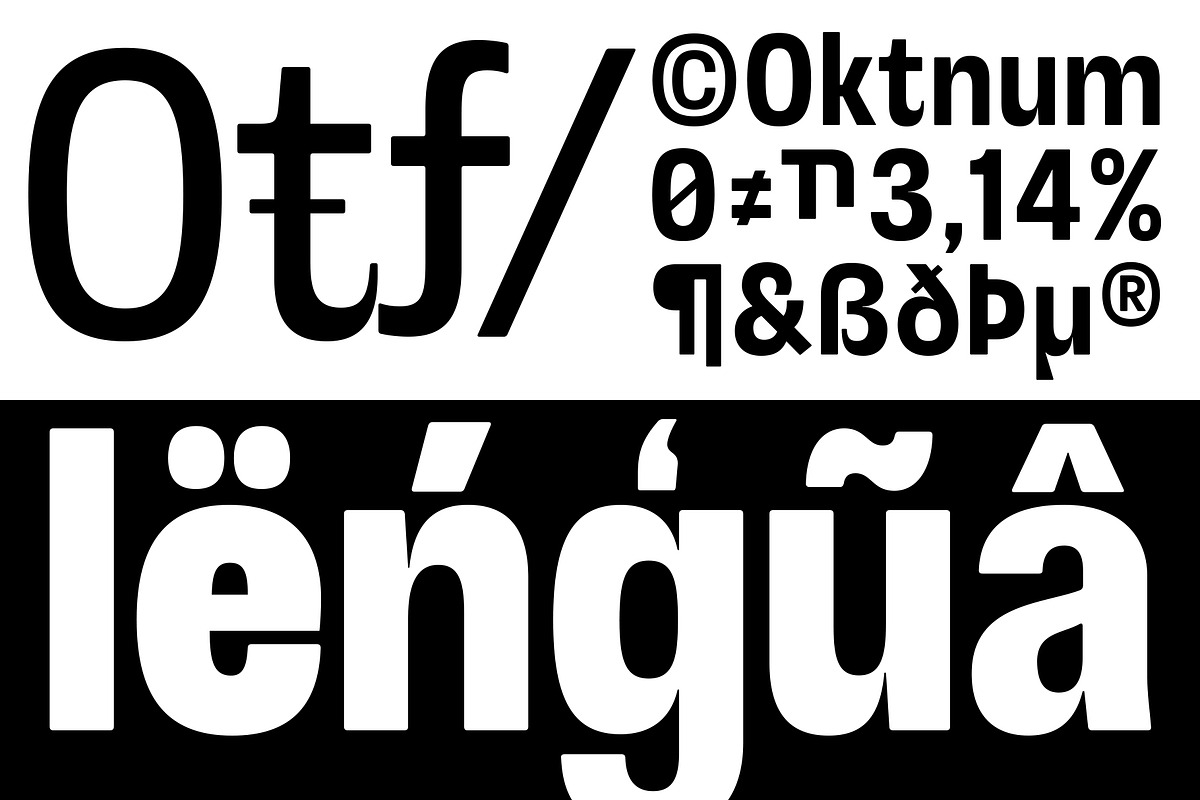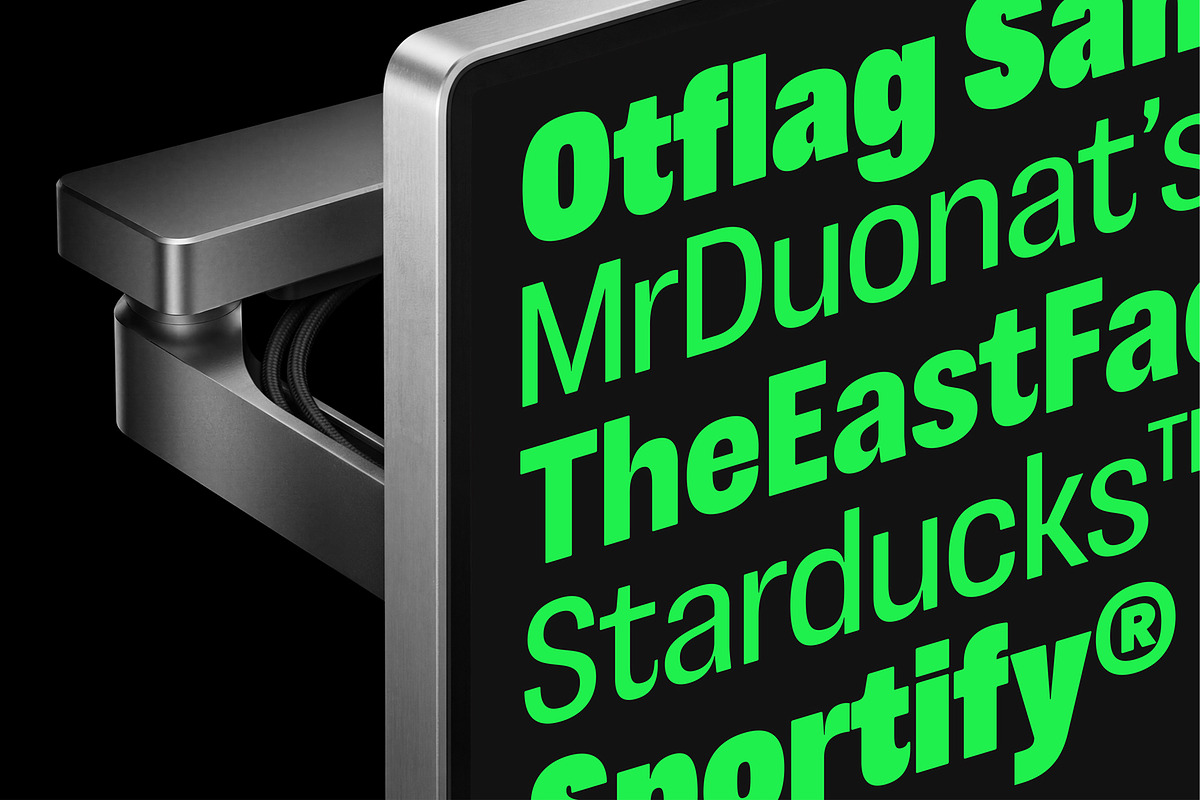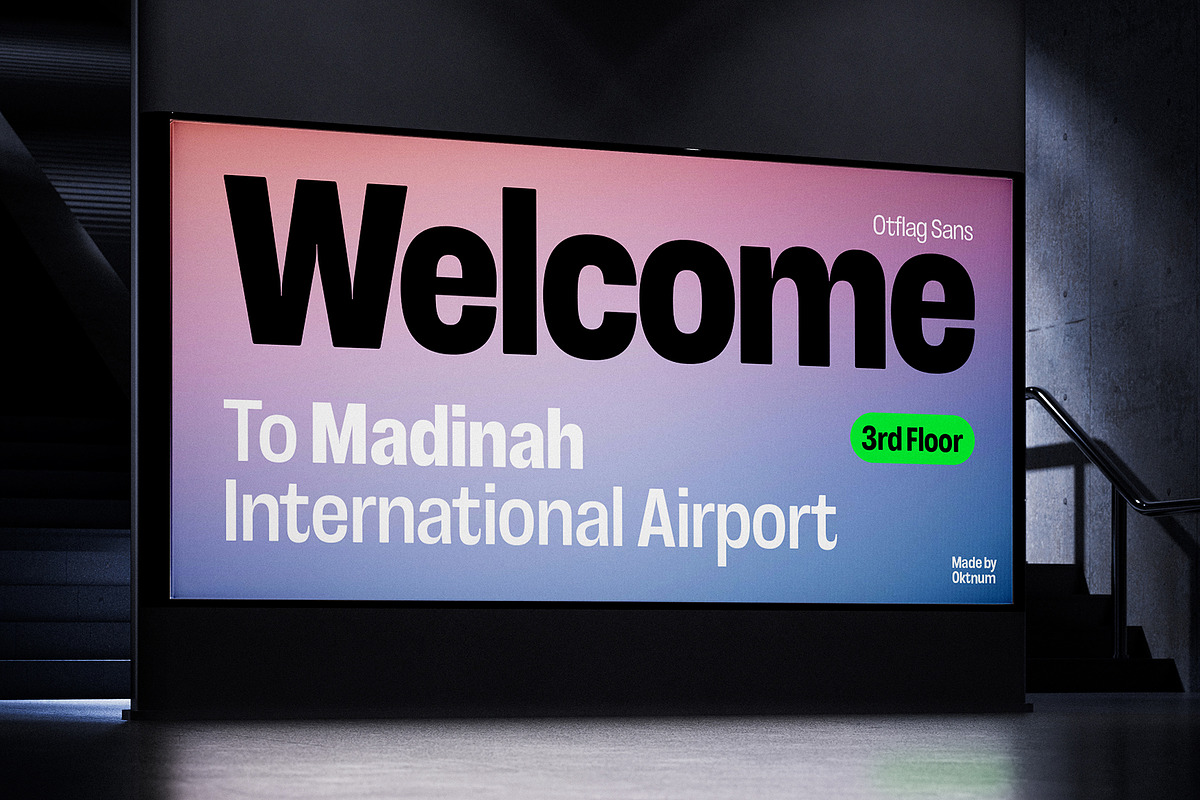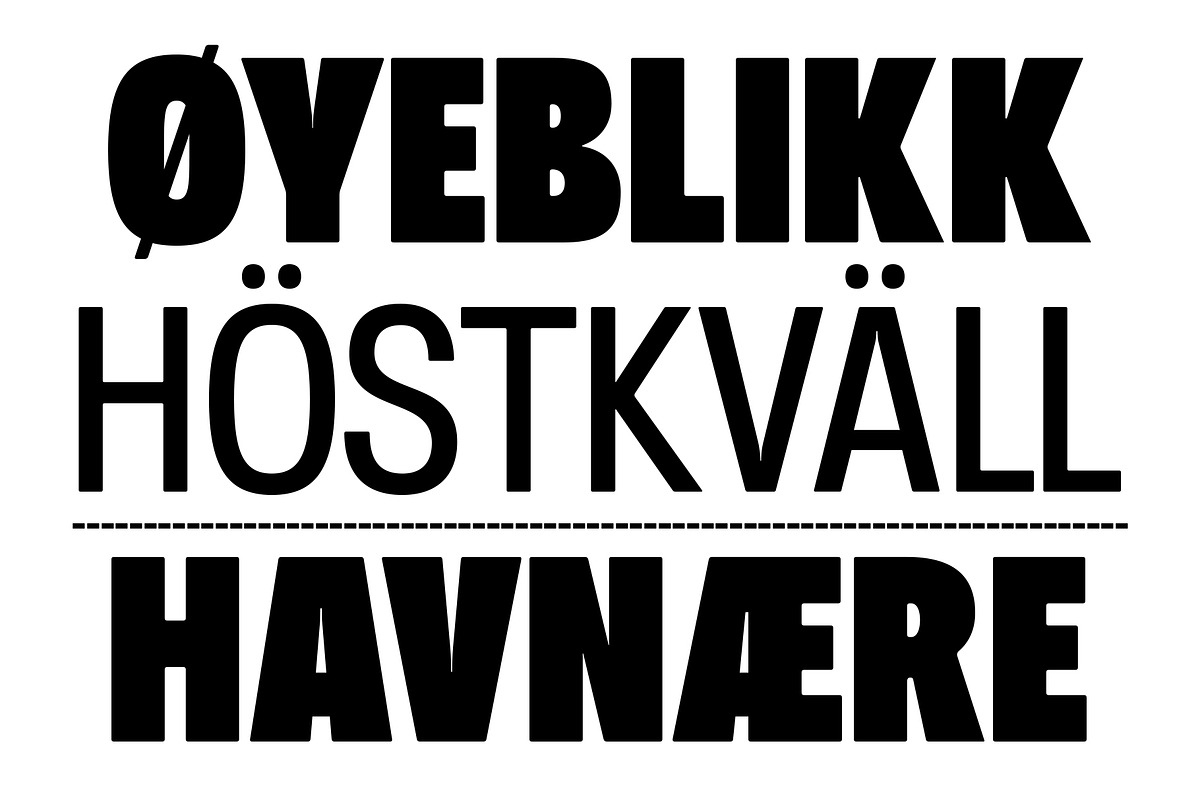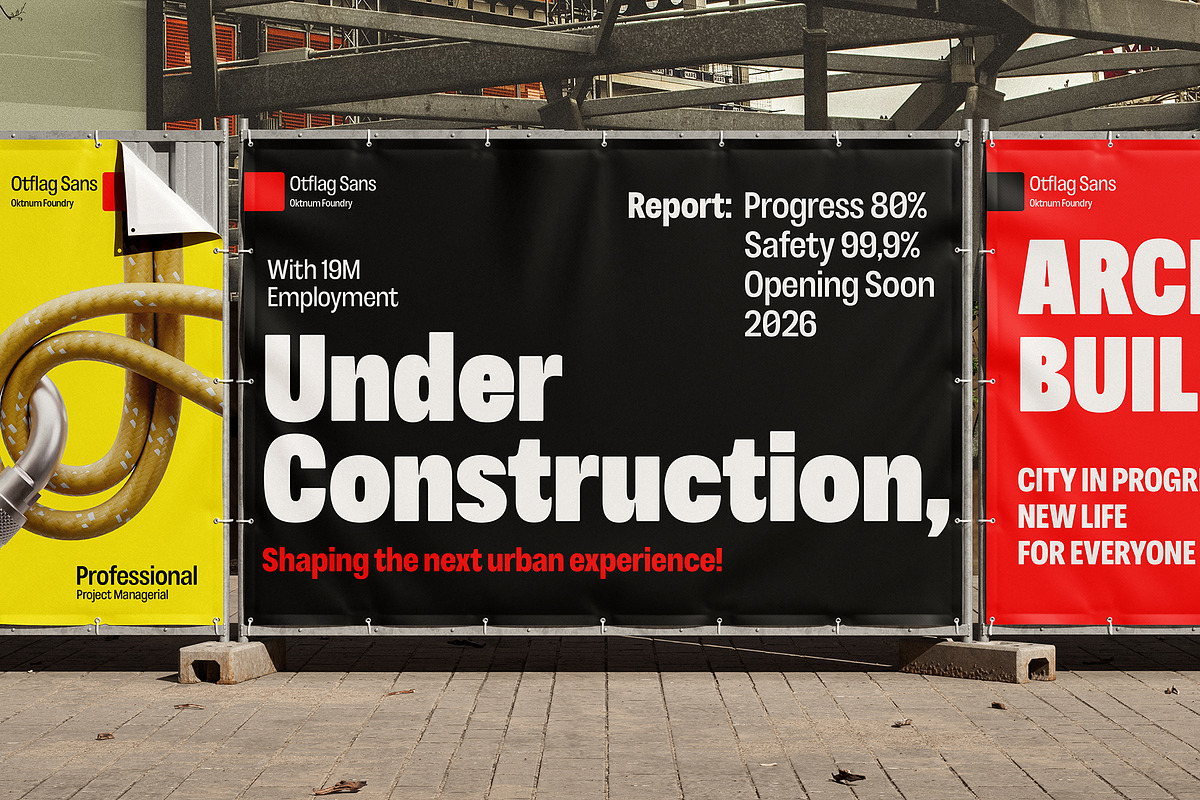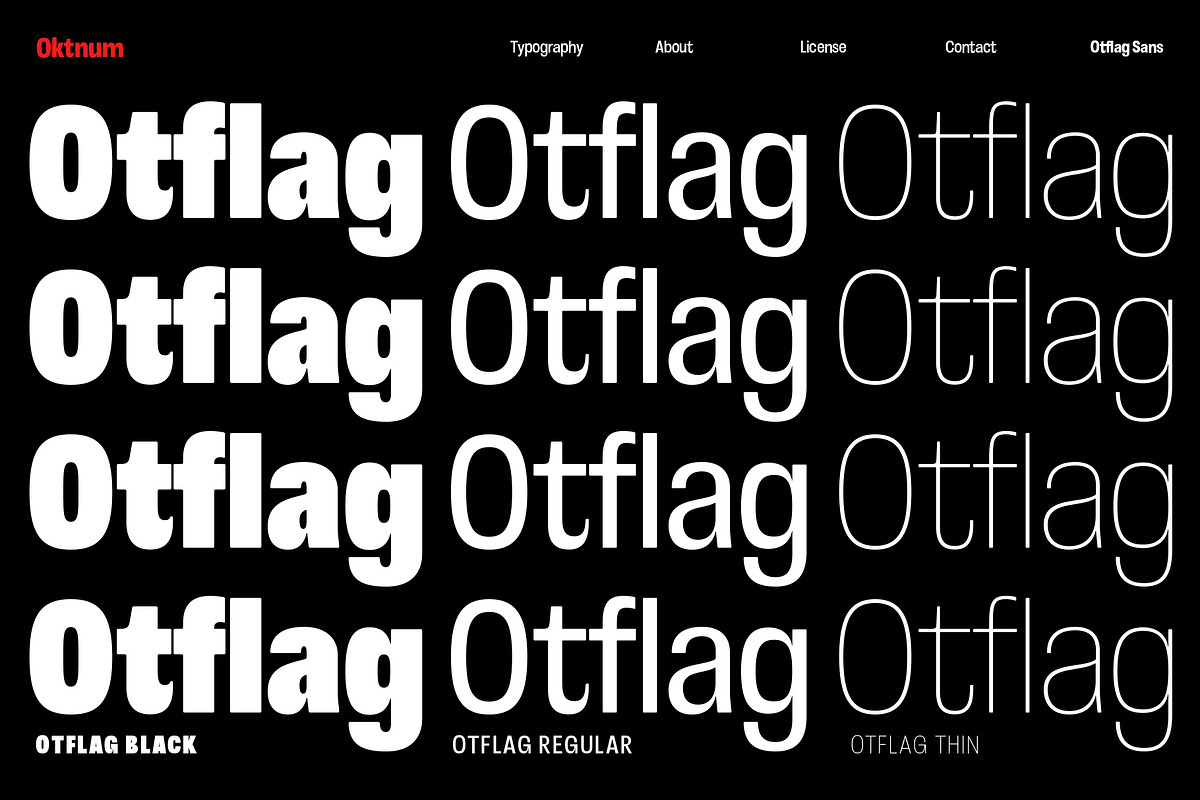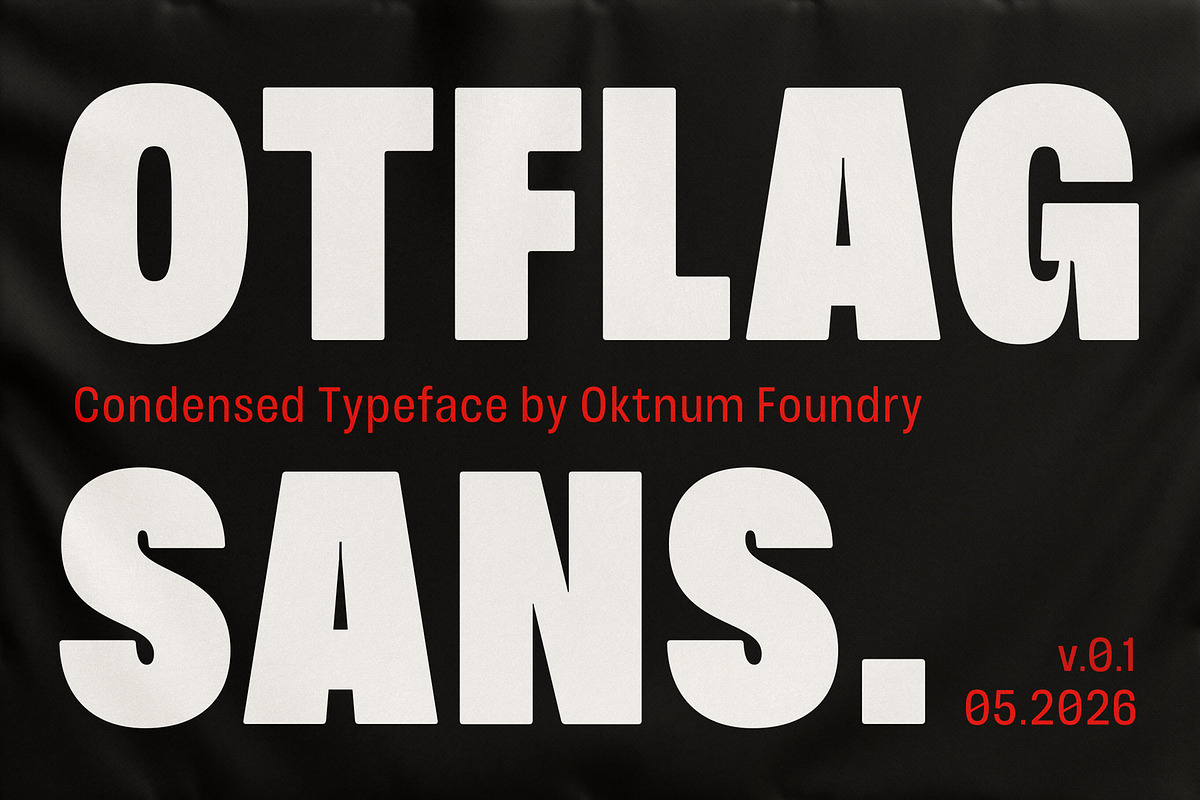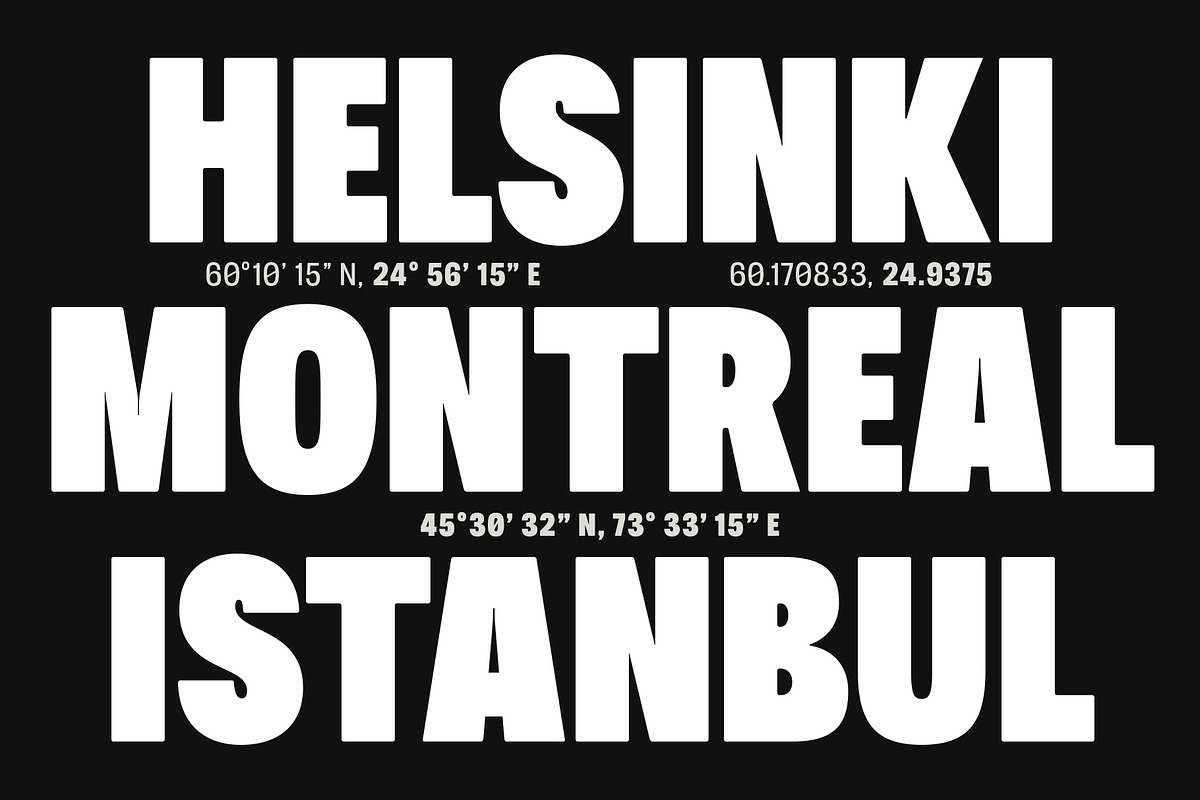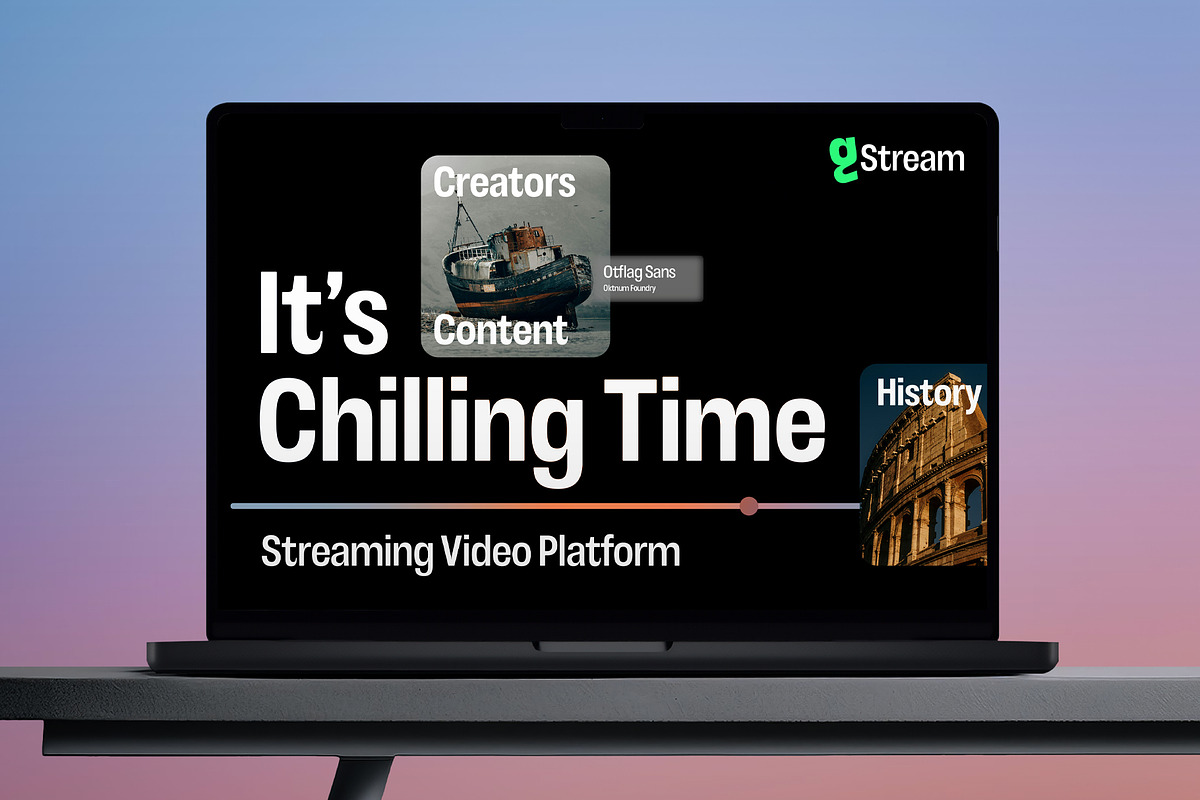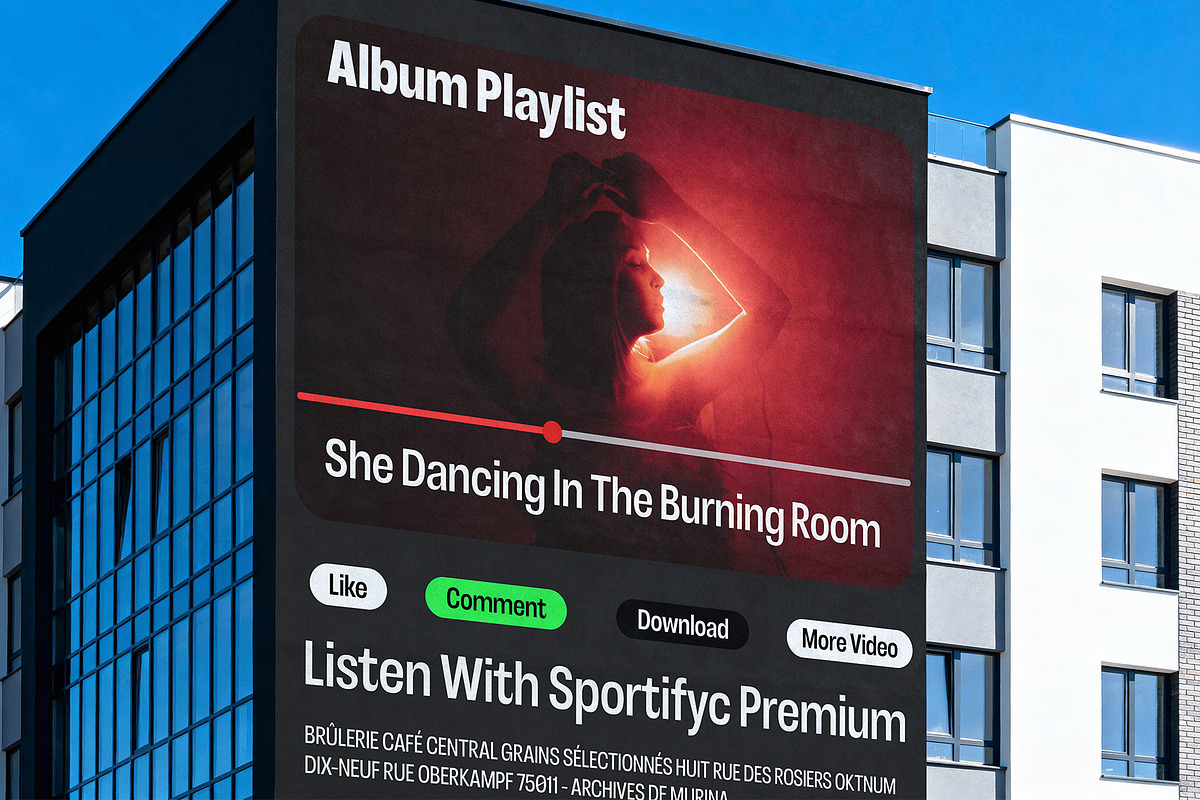
Otflag Sans
Otflag Sans is a contemporary condensed sans serif built around compact proportions, rounded forms, and a highly recognizable visual rhythm. Designed with low contrast and distinctive signature glyphs, the typeface combines strong presence with a smooth and approachable appearance.
Originally developed for large-format communication, Otflag Sans excels across billboards, signage systems, public installations, motion graphics, and other high-visibility environments where clarity and impact are essential.
Its condensed structure also makes it highly adaptable for space-conscious layouts, including social media stories, editorial compositions, music visuals, packaging, and digital interfaces.
Balancing efficiency, personality, and readability, Otflag Sans delivers a modern typographic voice suited for contemporary branding and visual culture.